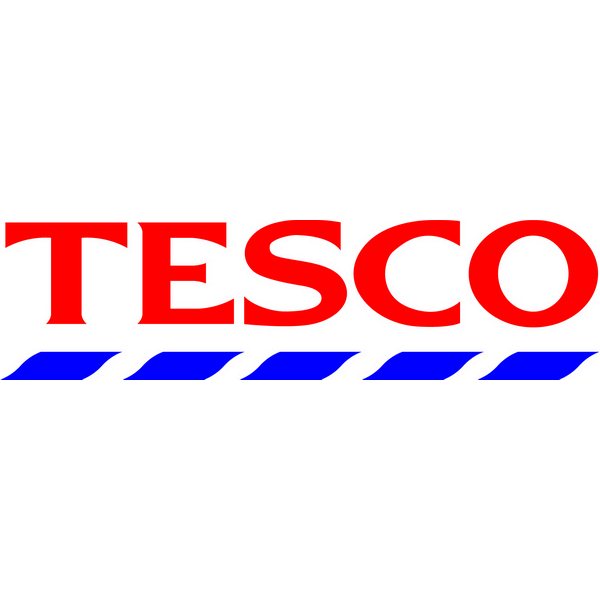
Tesco Font
Fonts in UseTesco is a British multinational grocery and general merchandise retailer, owned by Tesco plc. It operates a chain of supermarkets, hypermarkets, and convenience stores, and was founded in 1919.
The Tesco logo has changed many times since 1919. The current version, used since 1996, is a red serif logotype with blue stripes below it. It's called Tesco Bold, created exclusively for Tesco by Dalton Maag, but a similar font called ITC Newtext Regular by Ray Baker can be purchased and downloaded here.